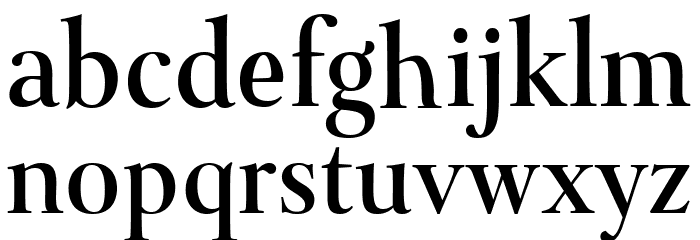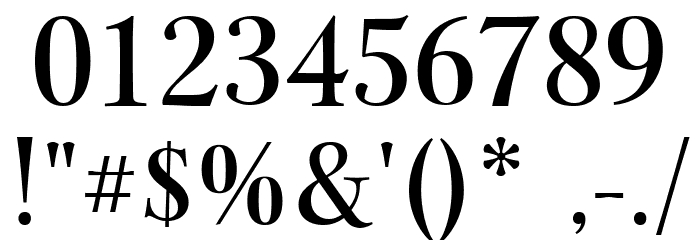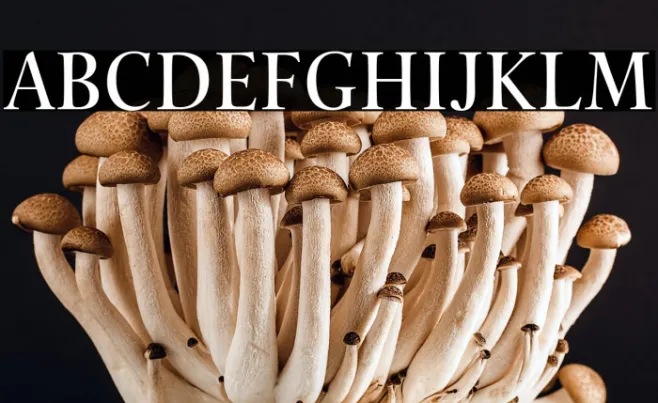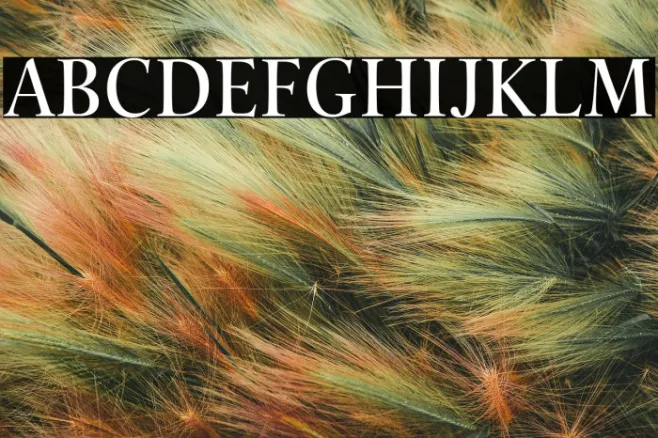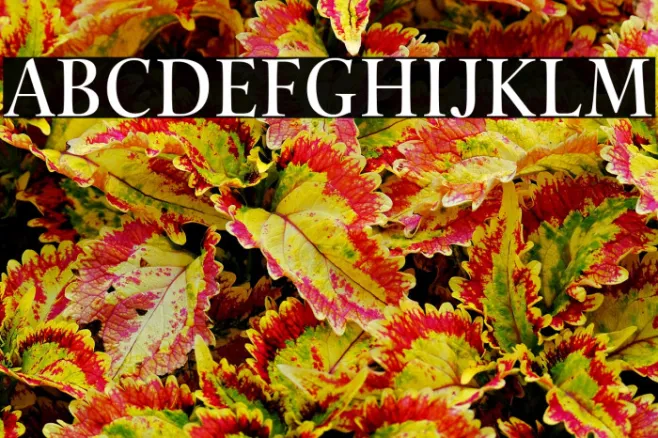
Juste Font
This font features a classic serif design with elegant, thin serifs that add a touch of sophistication. The characters are well-proportioned, with a slight contrast in stroke thickness that enhances readability. The uppercase letters are bold and commanding, while the lowercase letters maintain a graceful flow. The numerals are clear and distinct, making them suitable for both text and display purposes. Special characters are included, providing versatility for various design needs.
A classic serif font with elegant thin serifs and slight stroke contrast.
- Font: Juste
- Proposed Projects: Ideal for editorial design, book covers, formal invitations, and branding projects that require a touch of elegance.
- Category: Serif
- Overall Style: Classic